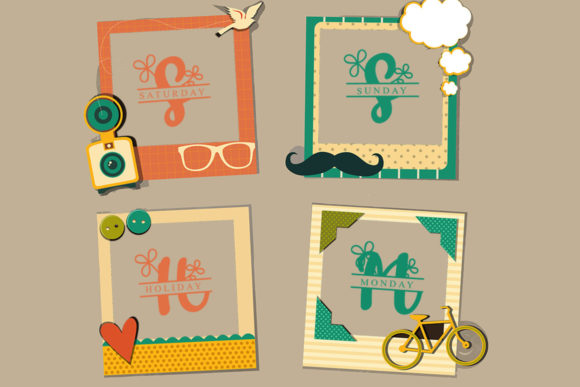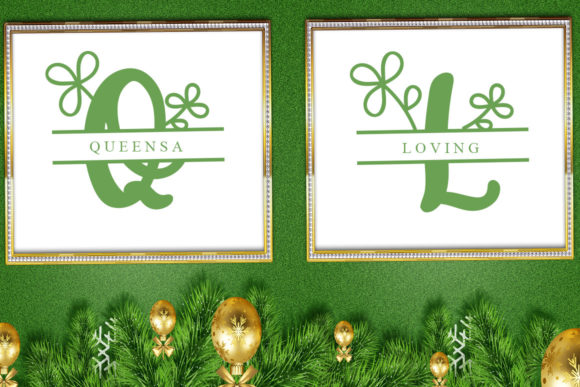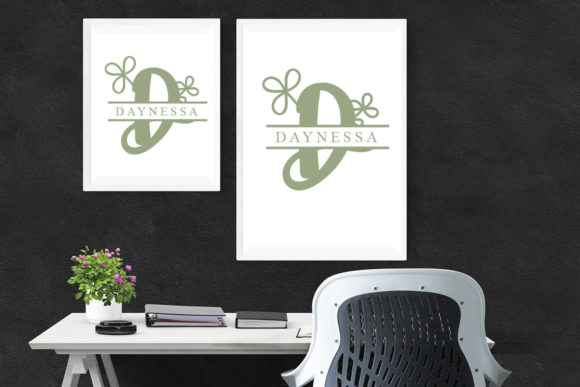
Introducing Amelda Monogram Font: The Perfect Addition to Your Romantic Designs
Are you looking for a font that exudes romance and elegance? Look no further than the Amelda Monogram Font. This highly detailed and sweet decorative font is perfect for adding a touch of whimsy and charm to your love letters, wedding invitations, and favorite design ideas. In this article, we’ll dive into the features and benefits of the Amelda Monogram Font, and explore how you can use it to take your designs to the next level.
A Font that Speaks to the Heart
The Amelda Monogram Font is a beautifully crafted font that is sure to capture the hearts of designers and crafters alike. Its intricate details and delicate lines make it a standout in the world of decorative fonts. Whether you’re looking to create a romantic wedding invitation, a heartfelt love letter, or a beautiful piece of artwork, this font is sure to impress.
One of the standout features of the Amelda Monogram Font is its versatility. It can be used in a variety of design applications, from digital projects to print materials. The font is highly legible, making it perfect for use in body text, headings, and titles. Additionally, its elegant and refined appearance makes it an excellent choice for use in high-end designs, such as luxury branding and advertising.
Key Features of Amelda Monogram Font
So, what makes the Amelda Monogram Font so special? Here are just a few of its key features:
- Highly detailed and intricate design: The Amelda Monogram Font features intricate details and delicate lines that make it a standout in the world of decorative fonts.
- Sweet and romantic appearance: The font’s elegant and refined appearance makes it perfect for use in romantic designs, such as love letters and wedding invitations.
- Highly legible: Despite its intricate design, the Amelda Monogram Font is highly legible, making it perfect for use in body text, headings, and titles.
- Versatile: The font can be used in a variety of design applications, from digital projects to print materials.
Using Amelda Monogram Font in Your Designs
So, how can you use the Amelda Monogram Font in your designs? Here are a few ideas to get you started:
- Wedding invitations: The Amelda Monogram Font is perfect for use in wedding invitations, adding a touch of romance and elegance to your design.
- Love letters: Write a heartfelt love letter using the Amelda Monogram Font, and make it a keepsake for your loved one.
- Digital art: Use the Amelda Monogram Font to add a touch of whimsy and charm to your digital art projects, such as illustrations and graphics.
- Branding and advertising: The font’s elegant and refined appearance makes it an excellent choice for use in high-end designs, such as luxury branding and advertising.
Tips and Tricks for Getting the Most out of Amelda Monogram Font
Here are a few tips and tricks for getting the most out of the Amelda Monogram Font:
- Experiment with different colors: The Amelda Monogram Font looks great in a variety of colors, so don’t be afraid to experiment and find the perfect hue for your design.
- Use it in combination with other fonts: The Amelda Monogram Font pairs well with other fonts, so try using it in combination with a sans-serif font for a unique look.
- Pay attention to spacing: Make sure to pay attention to the spacing between letters and words, as this can affect the overall appearance of your design.
In conclusion, the Amelda Monogram Font is a beautiful and versatile font that is perfect for adding a touch of romance and elegance to your designs. Its intricate details and delicate lines make it a standout in the world of decorative fonts, and its highly legible design makes it perfect for use in a variety of applications. Whether you’re a designer, crafter, or simply someone who loves beautiful typography, the Amelda Monogram Font is sure to impress.